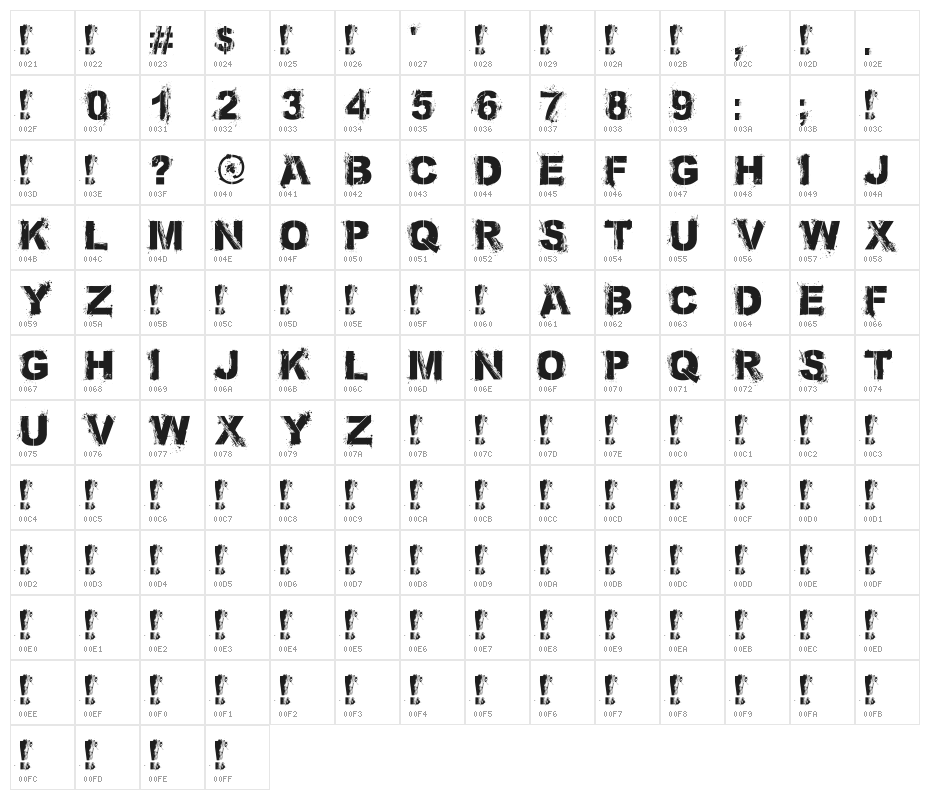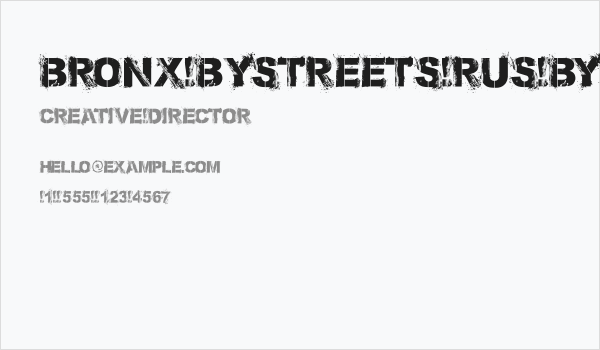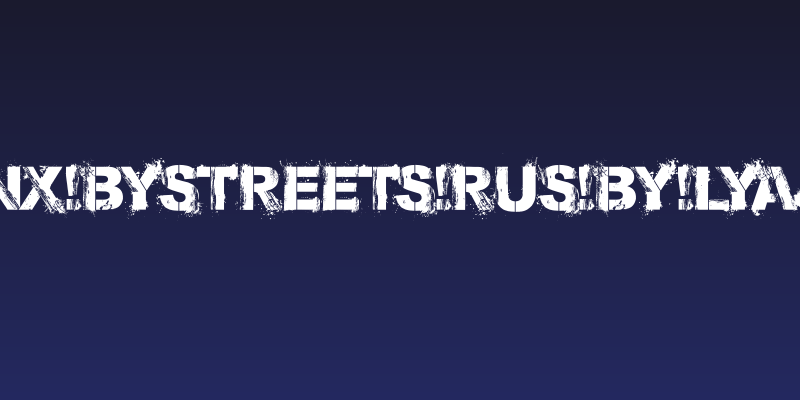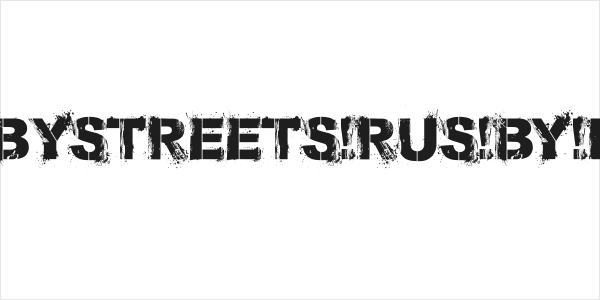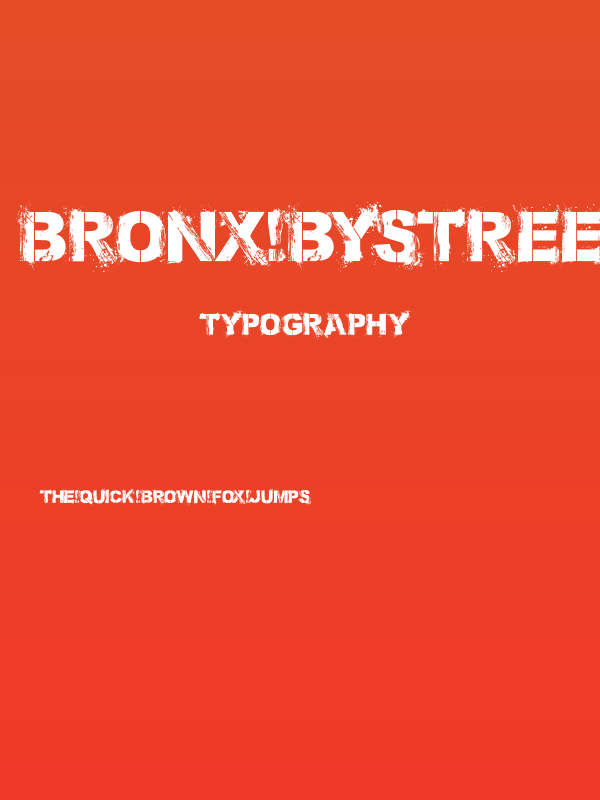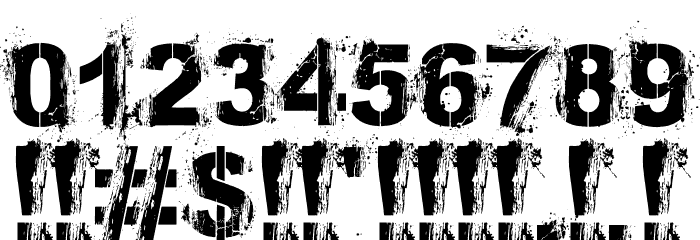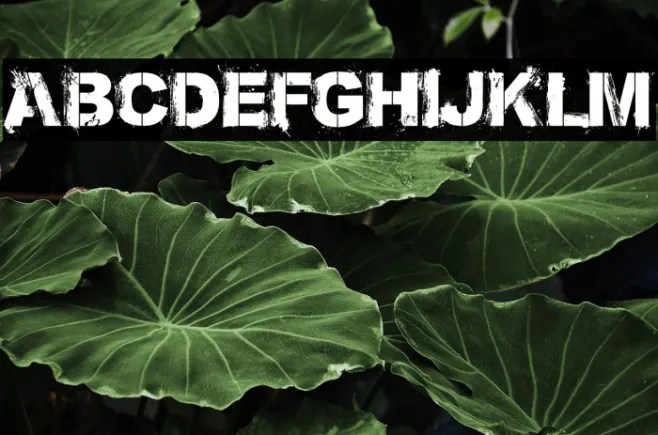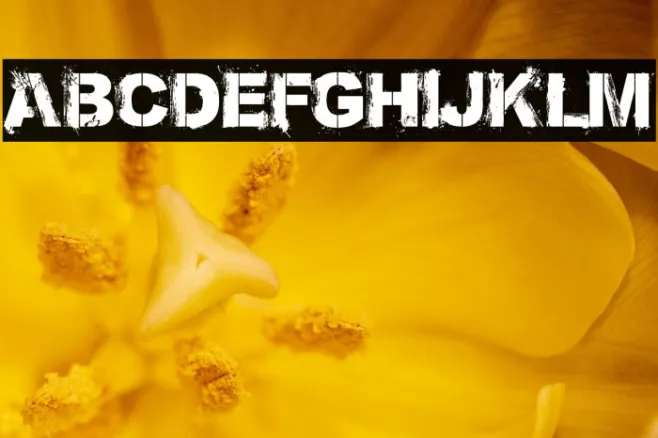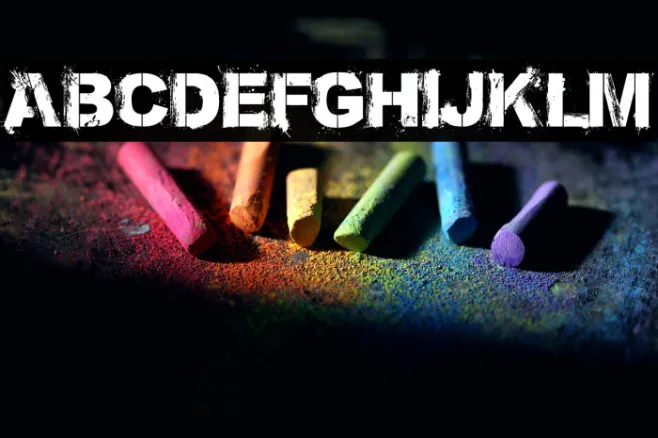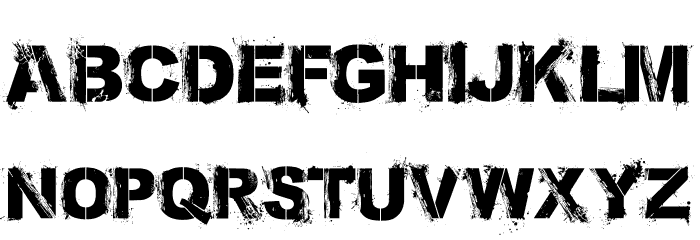
Bronx Bystreets(RUS BY LYAJKA) Font
✎ Stencil
Bronx Bystreets(RUS BY LYAJKA) Description
This font features a bold, distressed style with a gritty, urban aesthetic. Each character appears as if it has been spray-painted or stenciled, with rough edges and a textured appearance that suggests wear and tear. The uppercase letters are prominent and impactful, making them ideal for attention-grabbing headlines or titles. The numbers and special characters maintain the same rugged texture, ensuring consistency across all text elements. The font's design evokes a sense of rebellion and street art, perfect for projects that aim to convey a raw, edgy vibe.
| Overall Style | Urban, Edgy, Distressed |
| Proposed Projects | Ideal for street art-inspired designs, music album covers, event posters, and urban-themed branding. |